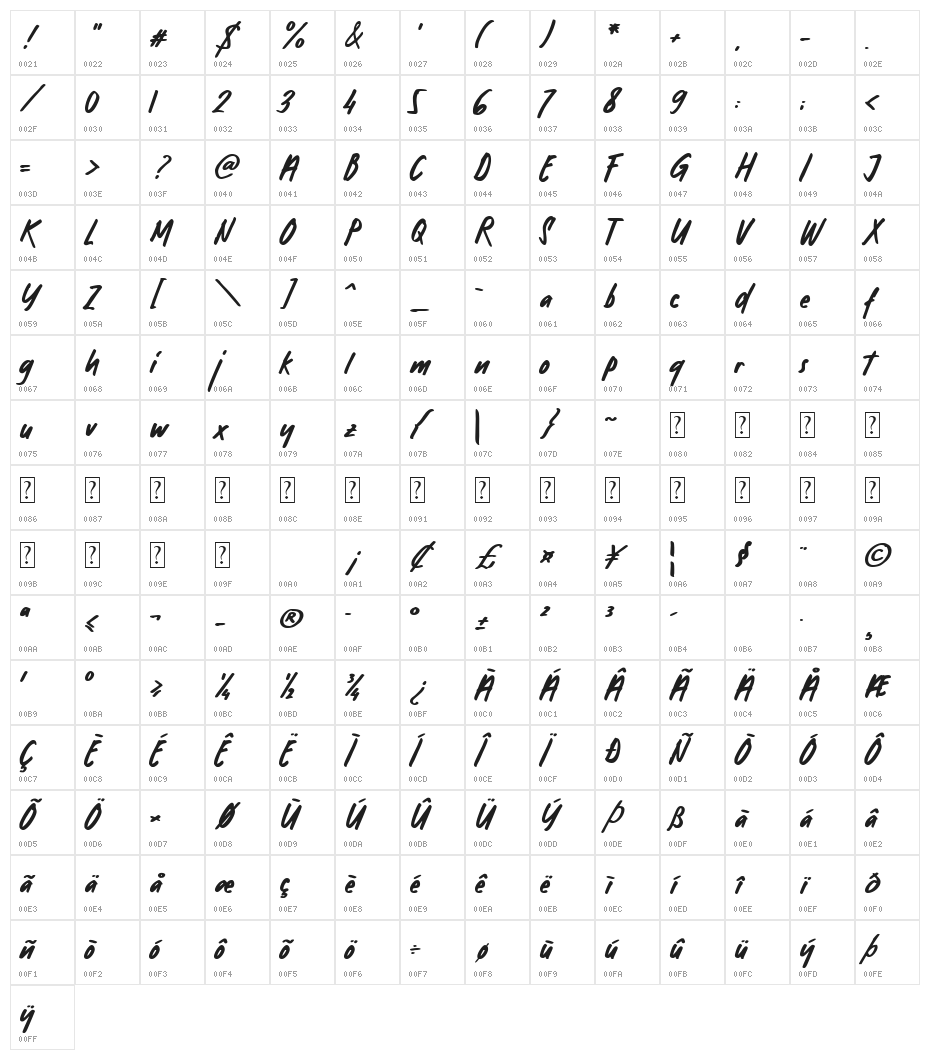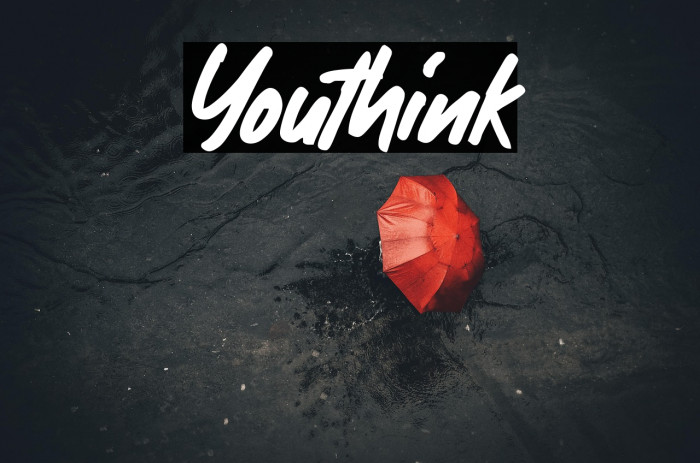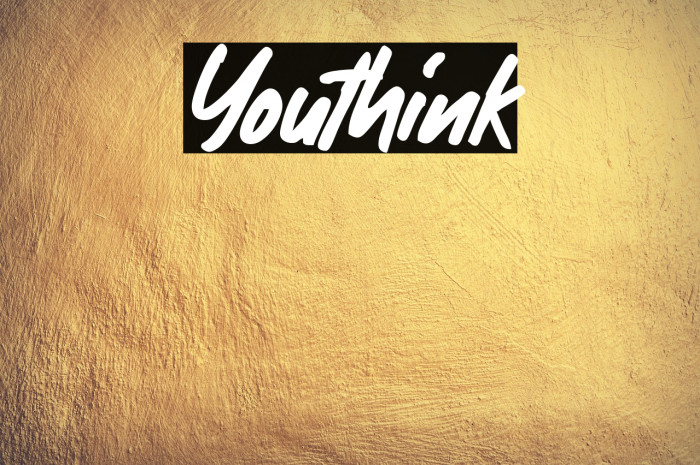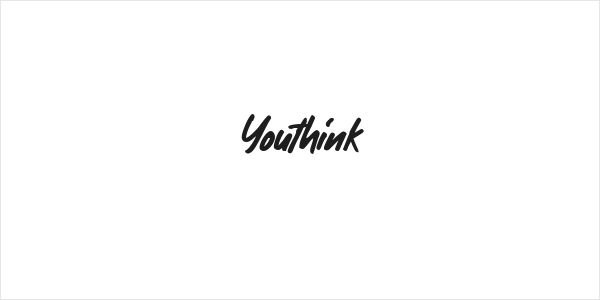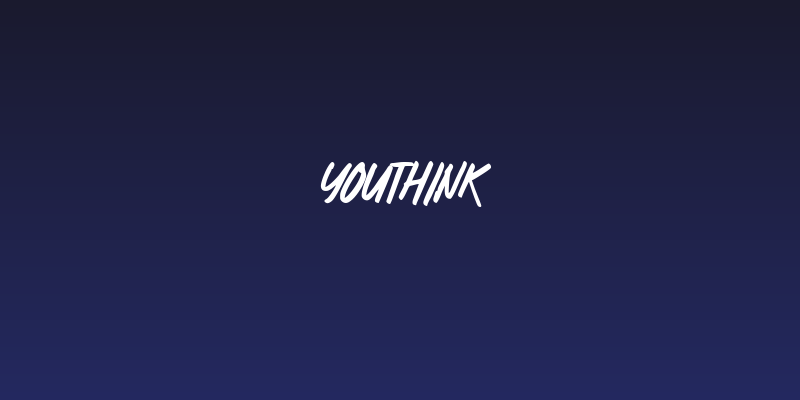
Youthink Font
Youthink Description
This font exudes a bold and energetic personality, characterized by its handwritten style that mimics the fluidity and spontaneity of brush strokes. The uppercase letters are tall and slightly slanted, giving a sense of movement and dynamism. The lowercase letters maintain a consistent style, with some characters featuring unique flourishes that add to the overall expressive nature of the font. The numbers are equally bold, maintaining the same lively aesthetic. Special characters are creatively integrated, ensuring they match the playful and artistic vibe of the alphabetic characters. This font is perfect for projects that require a personal touch, such as invitations, posters, or branding materials that aim to convey creativity and individuality.
| Proposed Projects | Ideal for creative projects like invitations, posters, and branding materials that require a personal and artistic touch. |